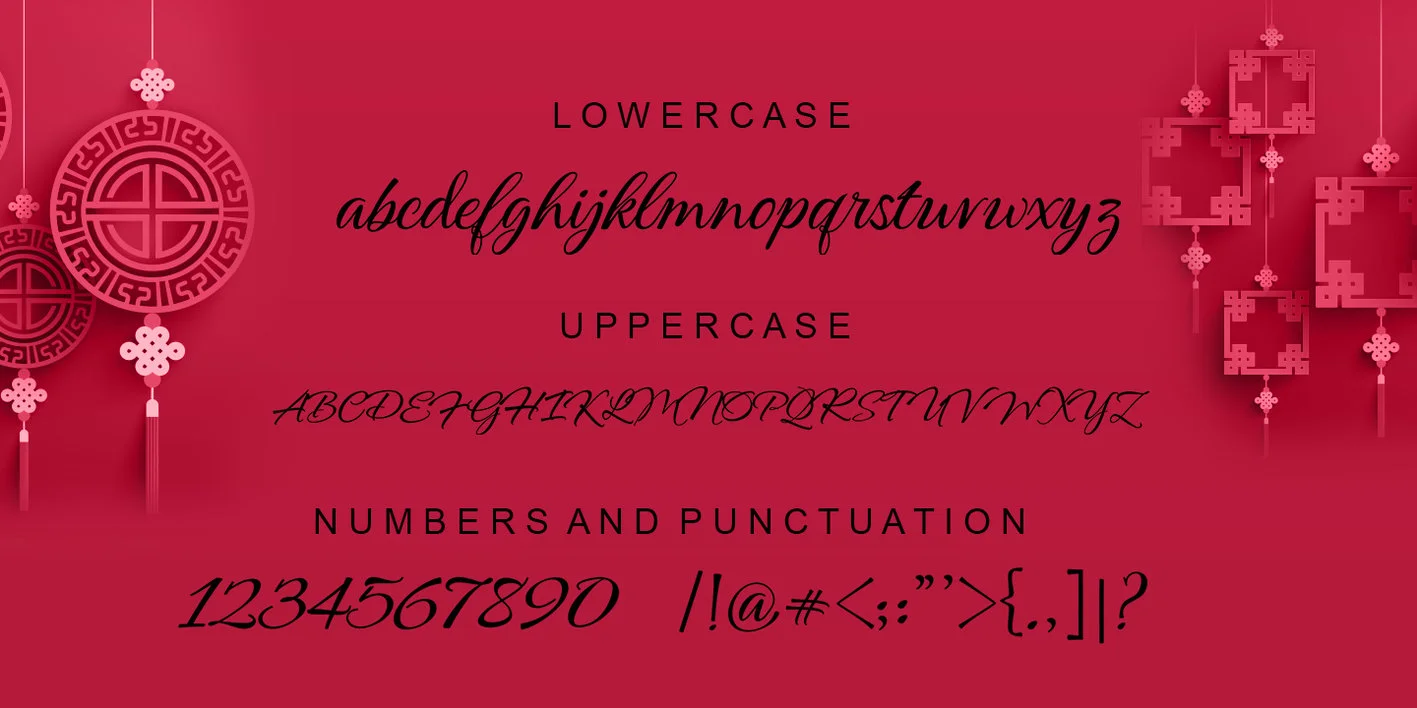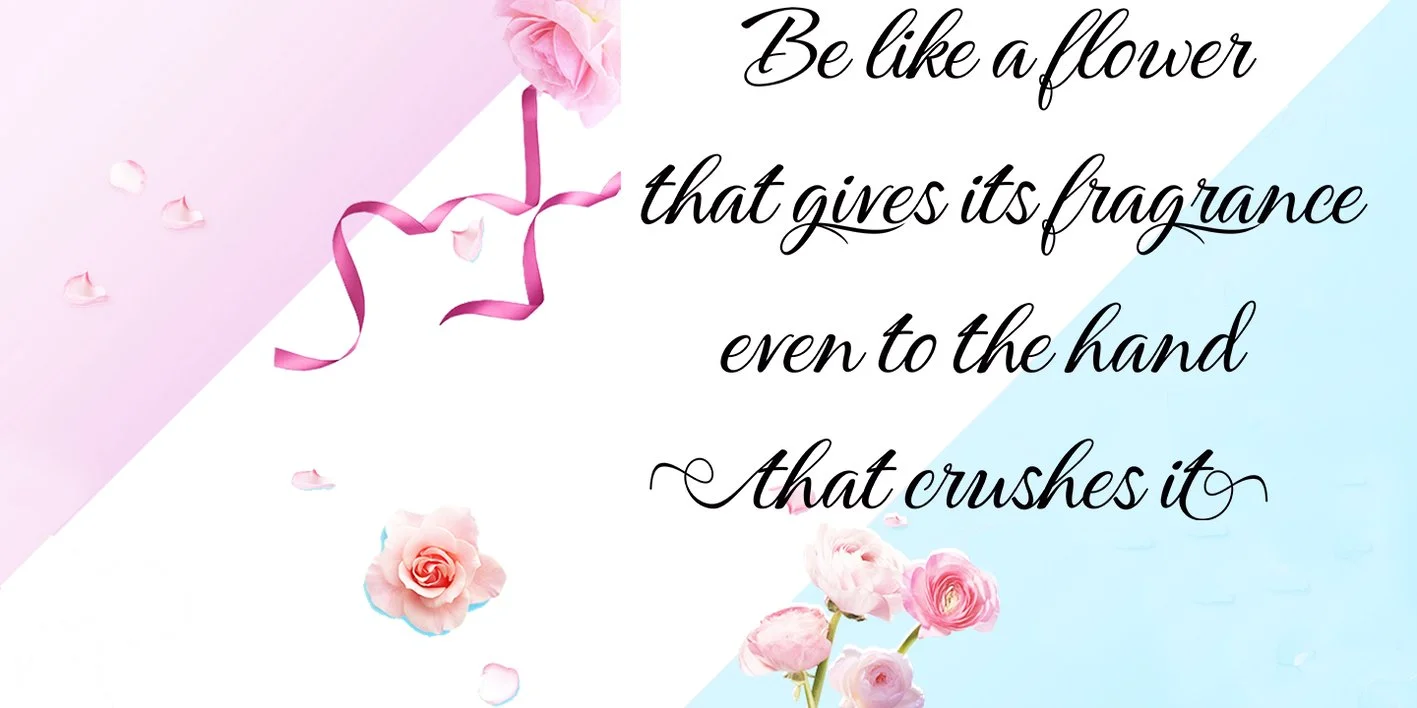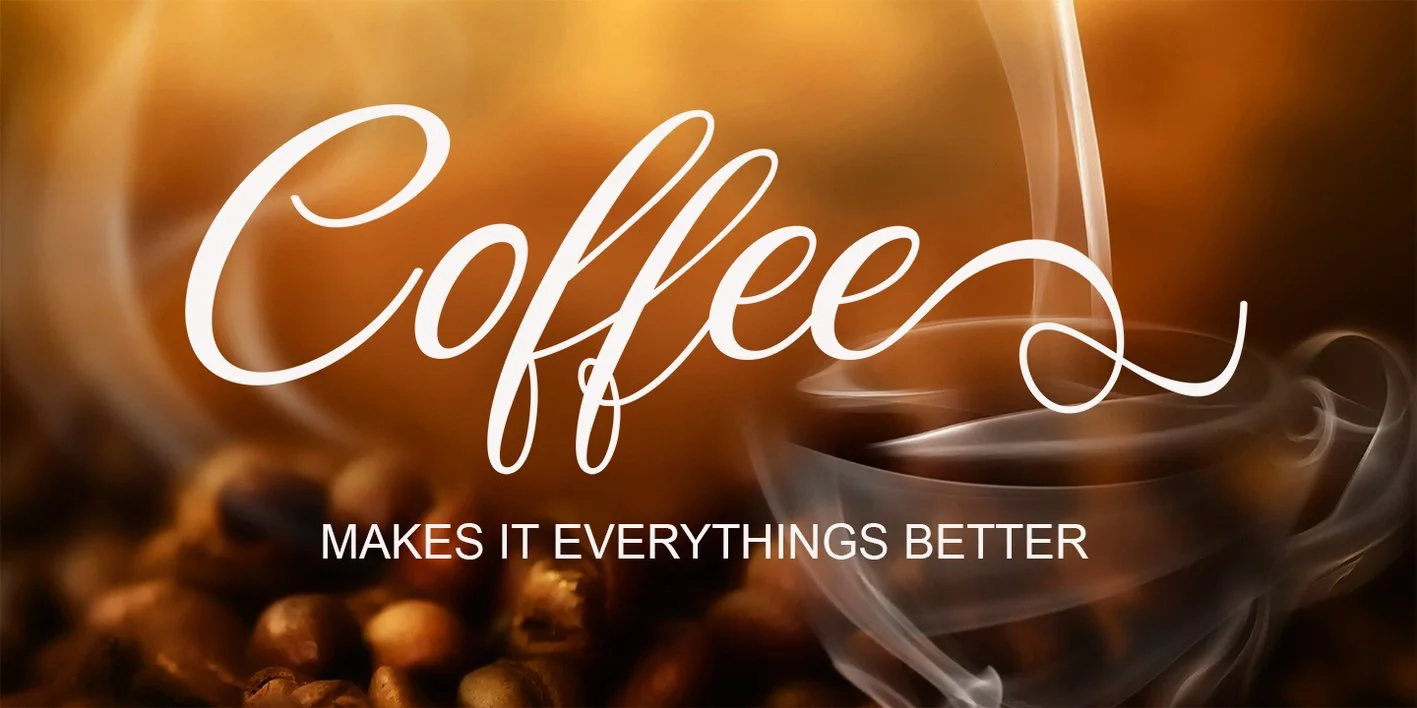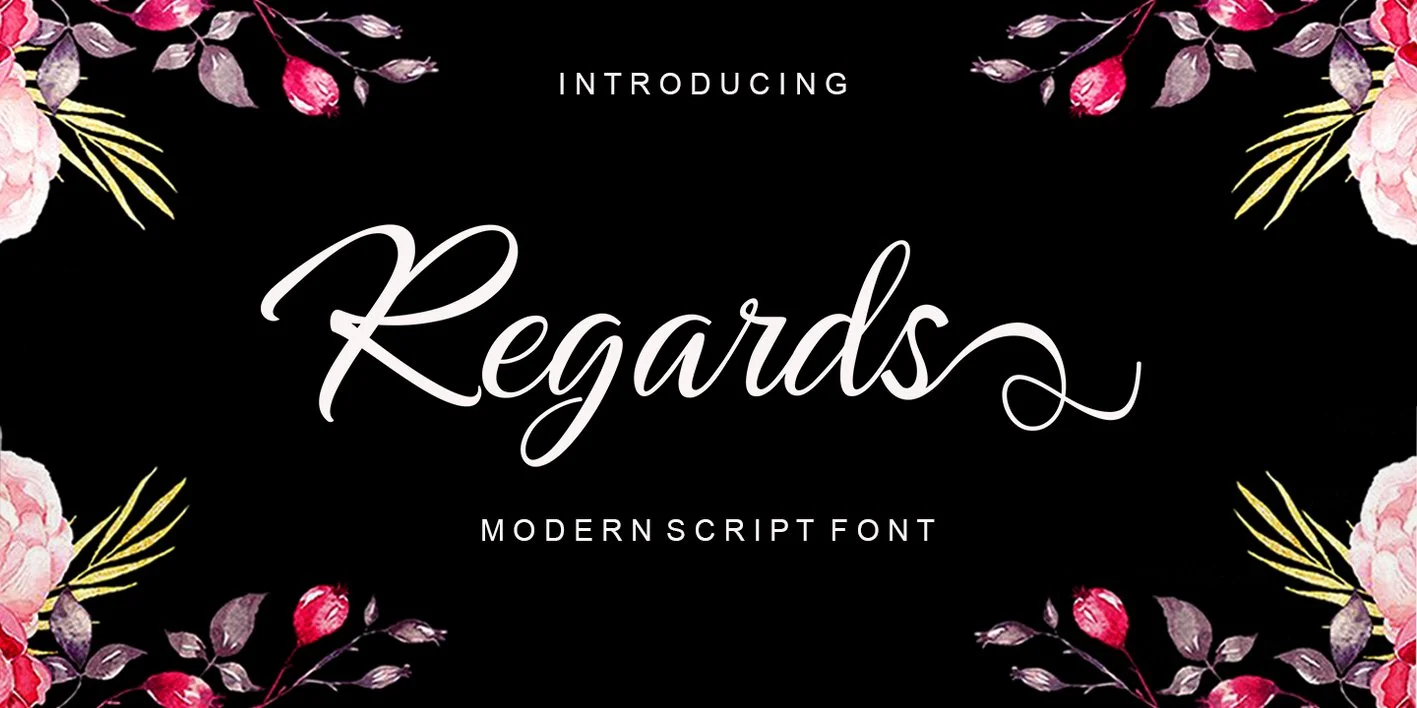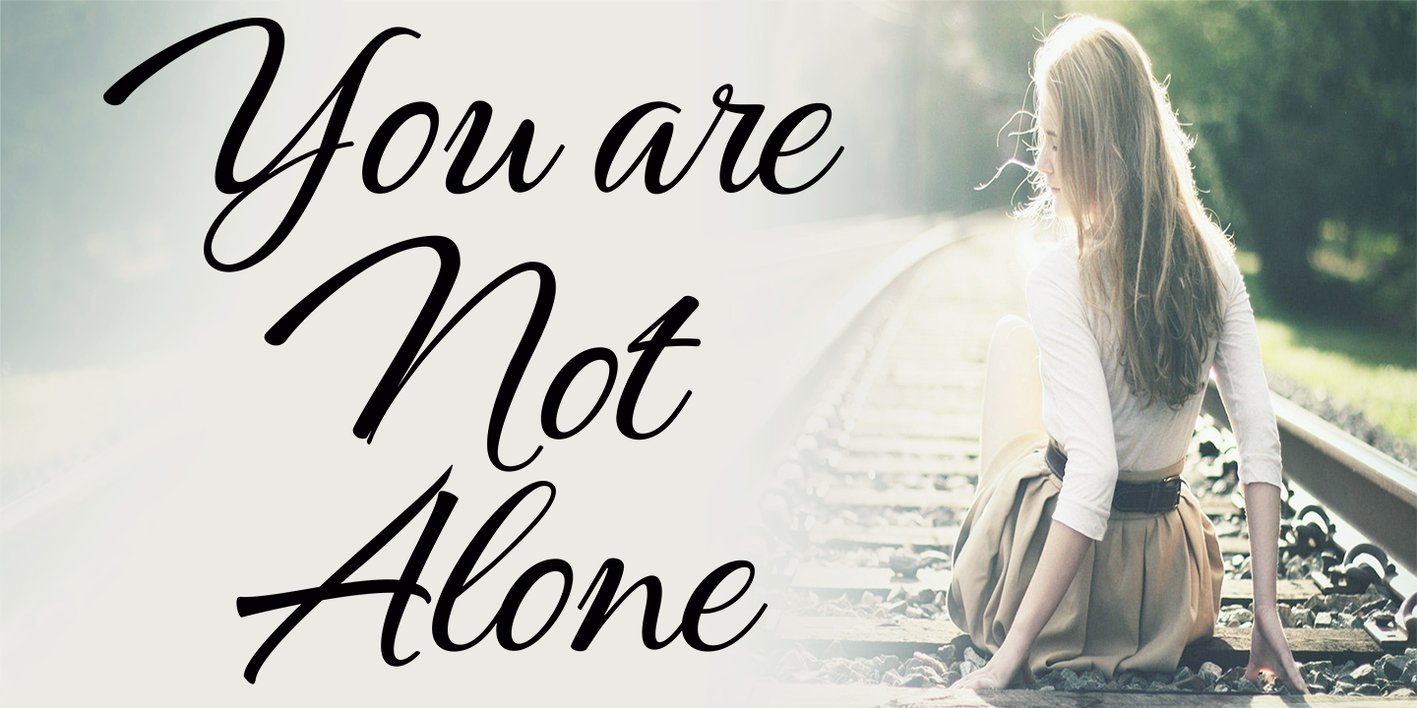
Regards Script Font
Typography shapes perception at a subconscious level. Regards Script leverages distinctive character without sacrificing readability to make every composition feel considered. The typeface brings an elegant, calligraphic sensibility to a broad range of creative disciplines, with consistent type colour across continuous text that holds up whether the work is print-first or screen-first.
In practice, Regards Script proves particularly effective for poster creation, product labels, perfume labels, fragrance labels, web design. Designers reaching for it find that the type decisions feel resolved rather than laboured — a useful quality when client timelines are tight.
The range of applications extends to environmental graphics, wedding invitations, bridal materials, luxury stationery. That breadth is deliberate: the proportions and spacing were stress-tested across a wide range of mock briefs before the typeface was finalised.
At smaller sizes the design retains its character without becoming cluttered. This resilience across scales makes Regards Script equally suitable for a business card and a billboard — a useful property when assets must scale across a campaign.
Graphic designers working on identity systems find Regards Script a reliable choice for projects that demand both personality and restraint. The design avoids the self-conscious quirkiness that dates quickly, settling instead for considered distinctiveness that holds up over time.